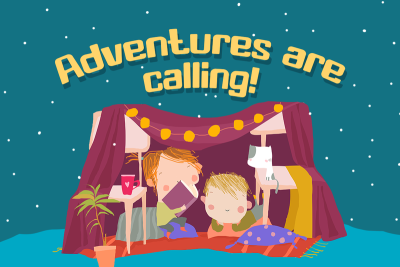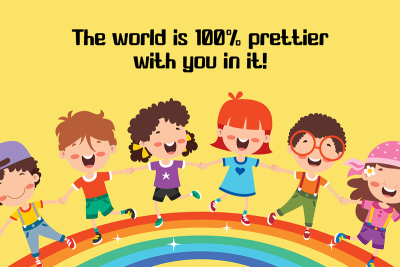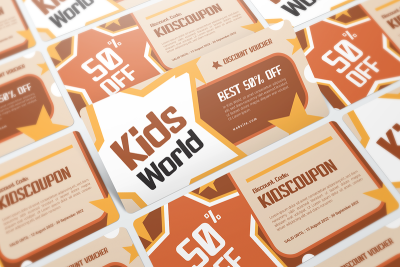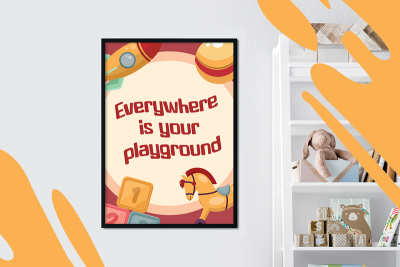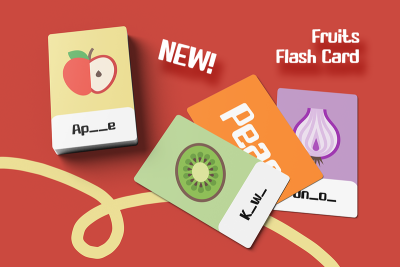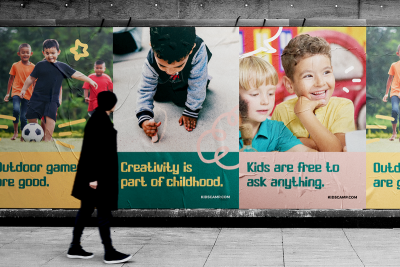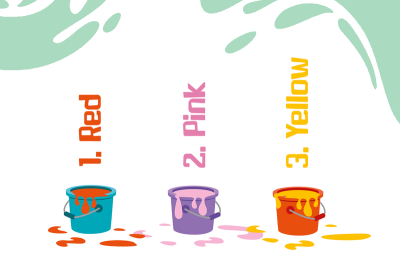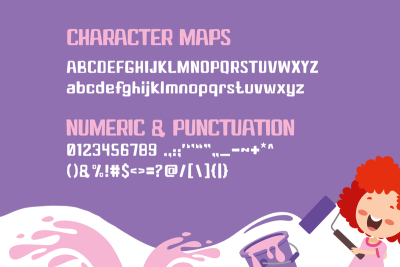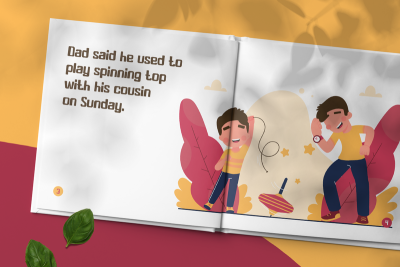
Kids font Toon City is a playful and vibrant typeface designed to add fun and creativity to your designs. With its bold, rounded edges and cheerful style, it instantly captures the joy of childhood. Inspired by doodles, cartoons, and classroom creativity, Toon City brings a sense of wonder and imagination to projects aimed at young audiences. Moreover, it combines simplicity and legibility with a whimsical charm, ensuring it stands out without being overwhelming.
The letters feature a hand-drawn feel with rounded shapes and slightly irregular proportions, which further enhances their playful design. As a result, it is perfect for informal and lively presentations. Its versatility allows it to work well across different mediums, from digital applications to printed materials. For example, whether youโre creating storybooks, educational resources, party invitations, or advertisements, Toon City adds a fun and kid-friendly touch to every project.
In addition, the fontโs vibrant style makes it ideal for grabbing attention and maintaining engagement. Its cheerful vibe creates a sense of warmth, making designs feel more approachable and relatable. By choosing Toon City, you can ensure your content resonates with both children and adults alike.
Toon City is ideal for educators, childrenโs authors, designers, and brands focused on kids. For instance, teachers can use it for worksheets, classroom posters, activity books, and digital learning tools. Its playful and engaging look appeals to younger learners, making educational materials more exciting and approachable.
Additionally, parents and party planners will find it perfect for designing birthday invitations, banners, decorations, and even thank-you notes. It is also an excellent choice for marketers creating promotional materials for toys, games, clothing, or other family-friendly products. Not only does Toon City help brands connect with children, but it also ensures a polished and professional appeal for parents.
Furthermore, app and game developers can benefit from using this font in kid-focused interfaces, in-app text, and icons. It is also a great option for packaging design, particularly for childrenโs snacks, stationery, or art supplies. With its fun yet readable style, it works wonderfully for any project targeting young audiences.
Overall, with its balance of creativity and clarity, Toon City is a must-have typeface for anyone designing for kids. Whether you’re an educator, a creative professional, or a business owner, this font will help you bring your ideas to life in a way that is both playful and effective.